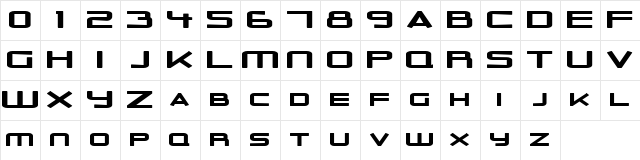
Outer Limits Solid Extended Regular
Design Context for Outer Limits Solid Extended Typeface
Outer Limits Solid Extended is a composed and adaptable typeface that performs quietly and consistently across a wide range of design contexts.